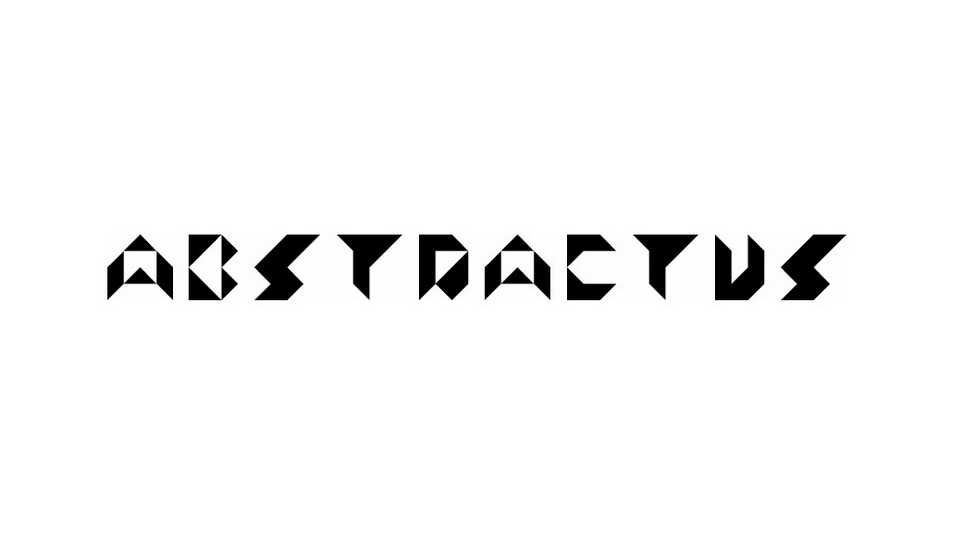
Download Abstractus is a decorative geometric display typeface created with triangle modules. With its bold impact, the font is great for posters, branding and typographic artworks.